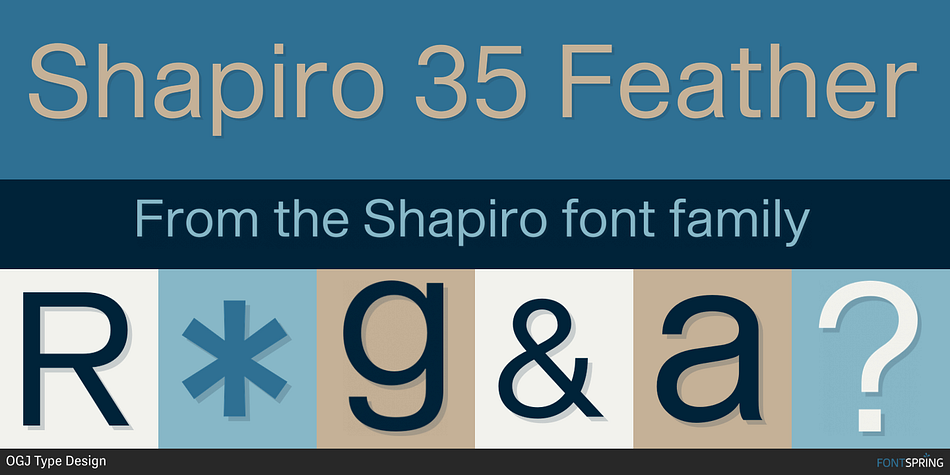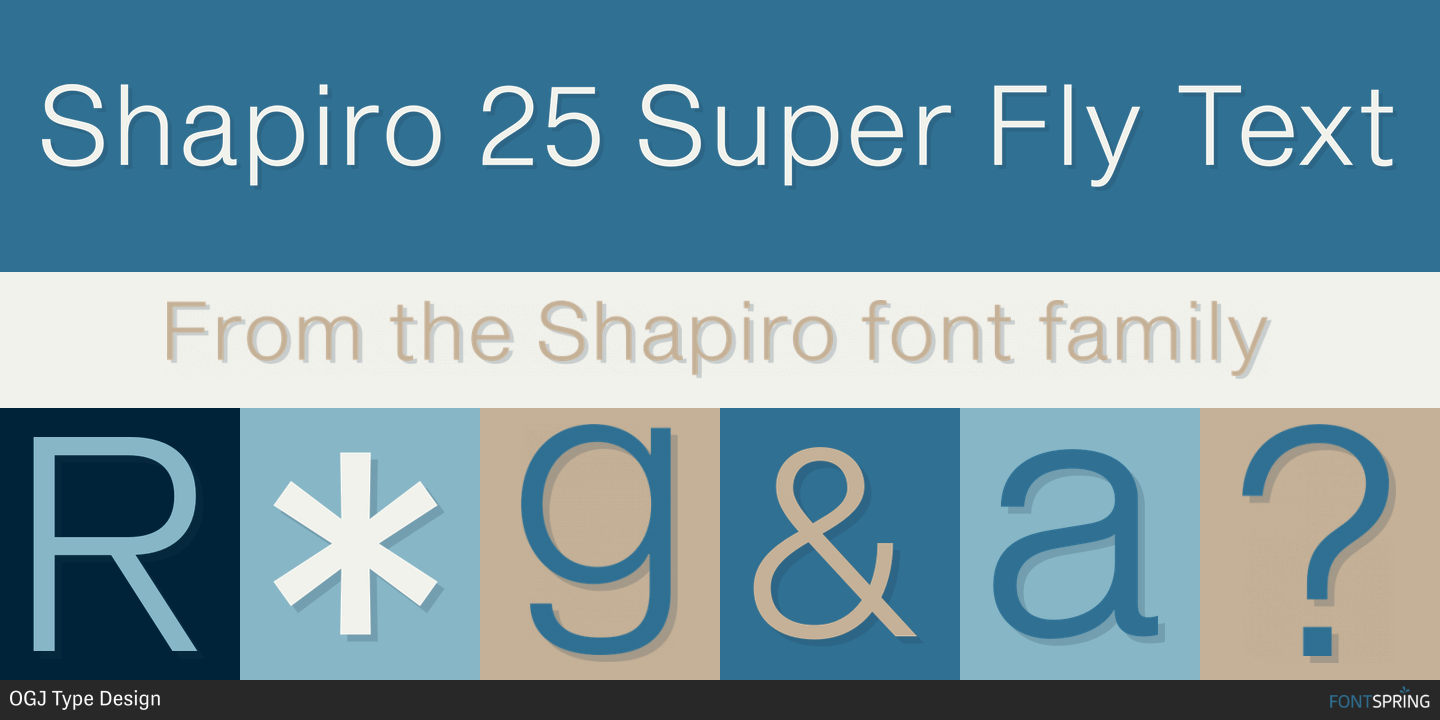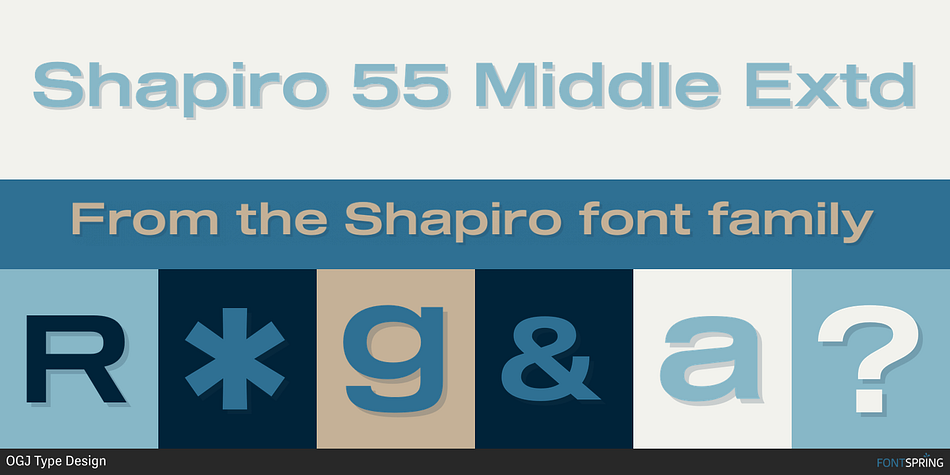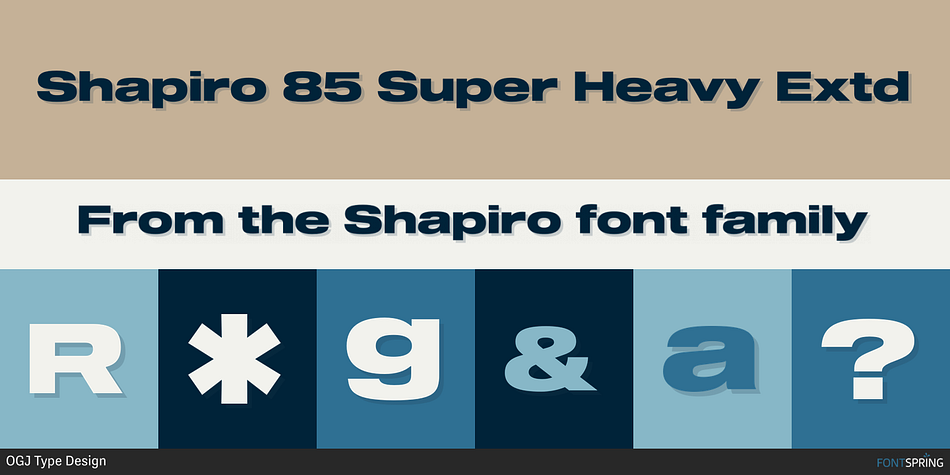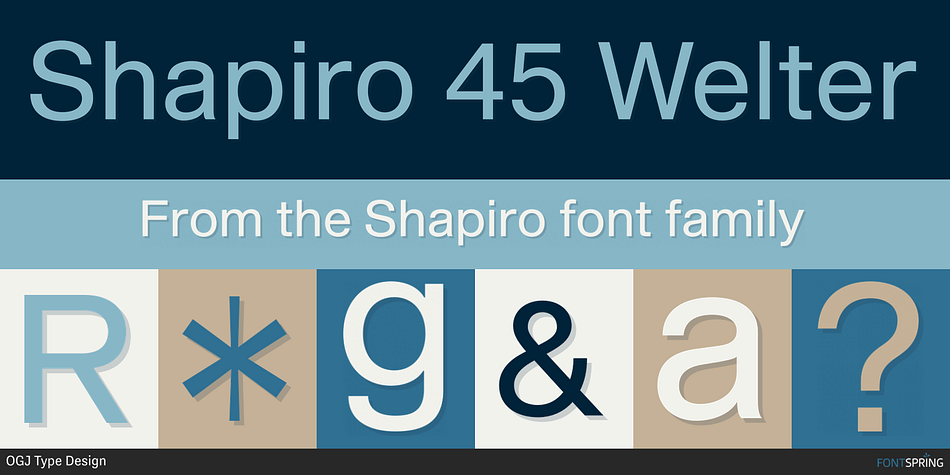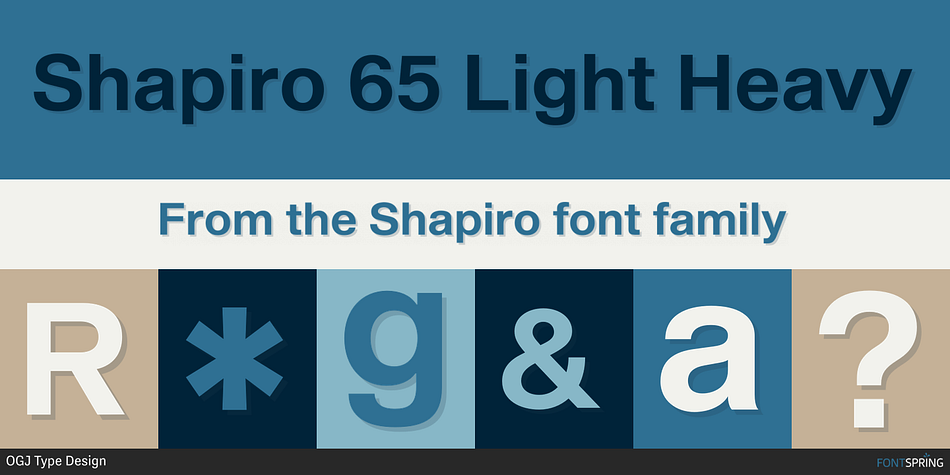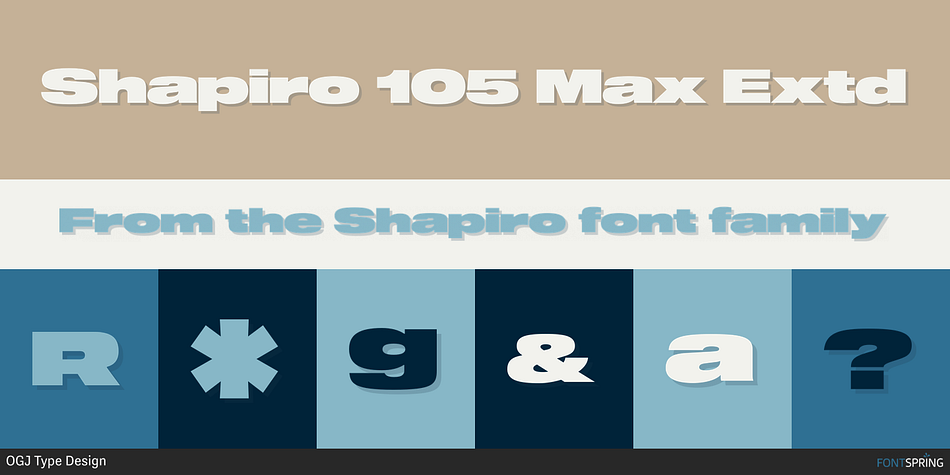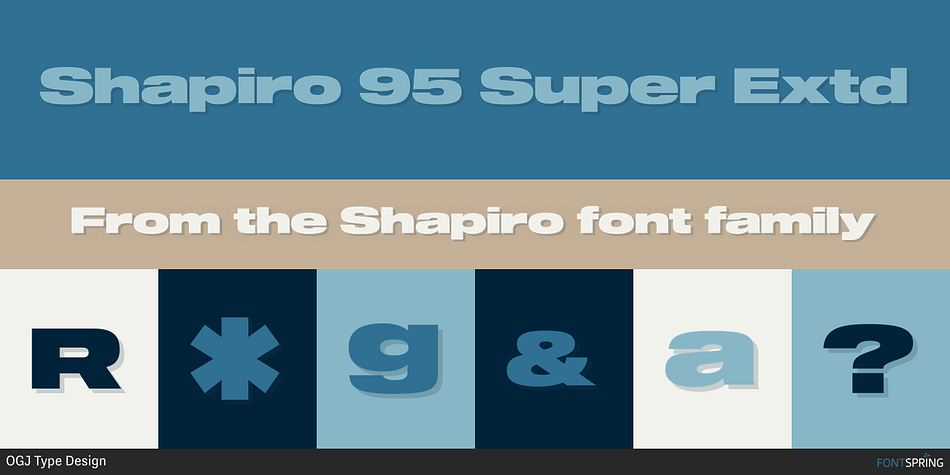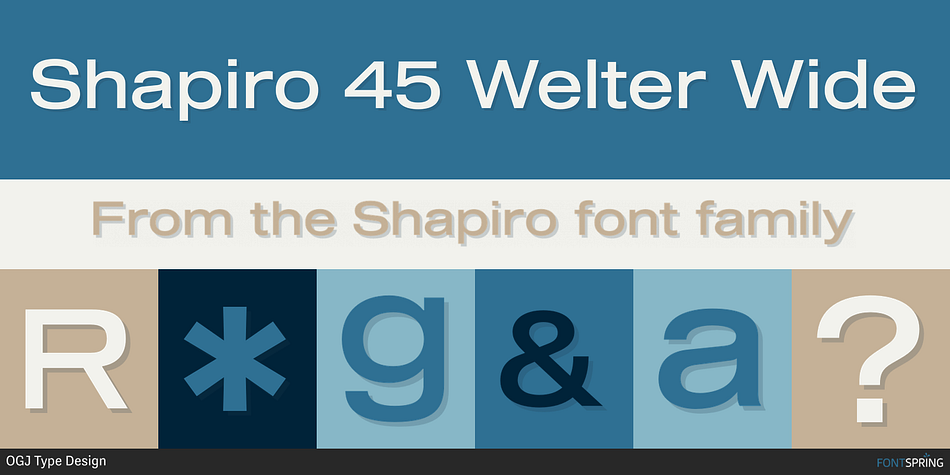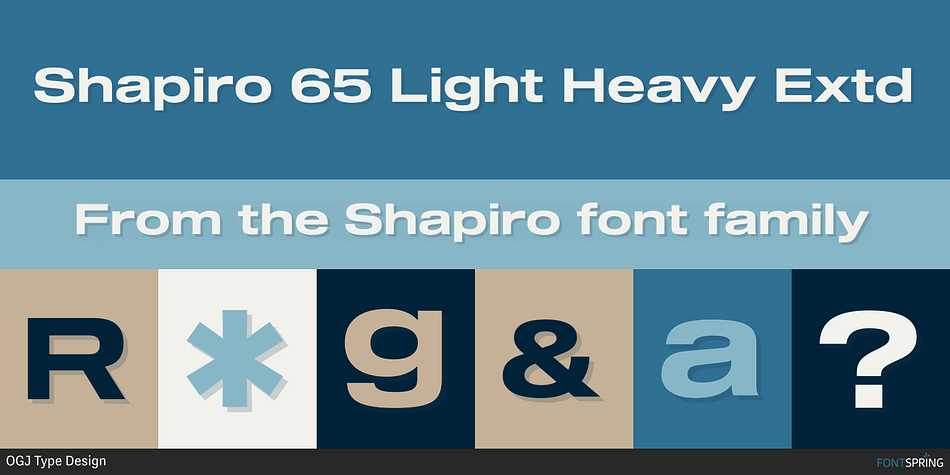
Designed by Oliver Jeschke, Shapiro is a display sans and sans serif font family. This typeface has thirty-four styles and was published by OGJ Type Design.
On the basis of the classical form, Shapiro meets all the requirements that are placed on a good font, such as good readability, a sympathetic overall impression, as well as a balanced gray-effect.
Shapiro boasts horizontal and vertical strokes that are nearly identical in width, giving the family a compact, modern look and feel.
This 34-font family sets itself apart from the crowd with:
- A very good, clean and timeless design
- From very slight to very strong
- Carefully spaced and kerned
- Separate cuts for longer passages of text
- Well-designed diacritical marks
The overall impression is so much more than just the sum of individual components.